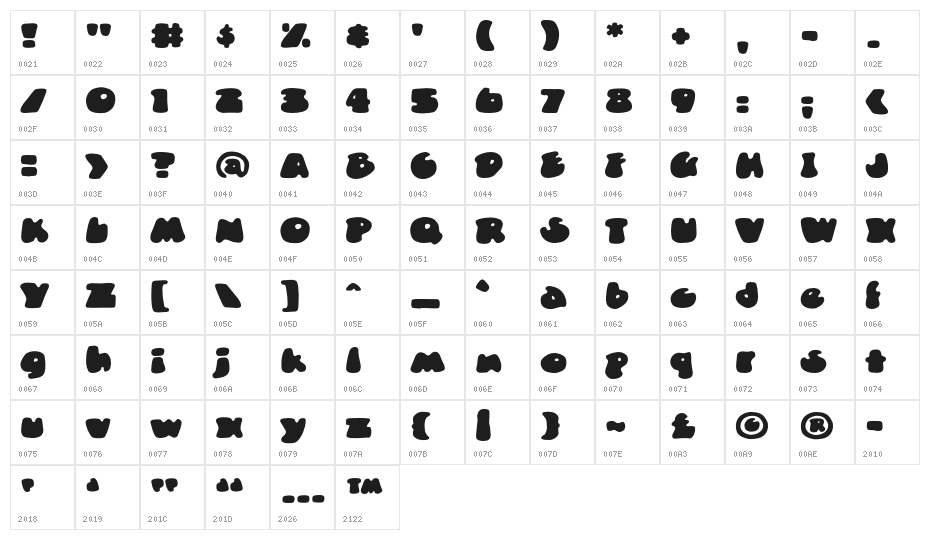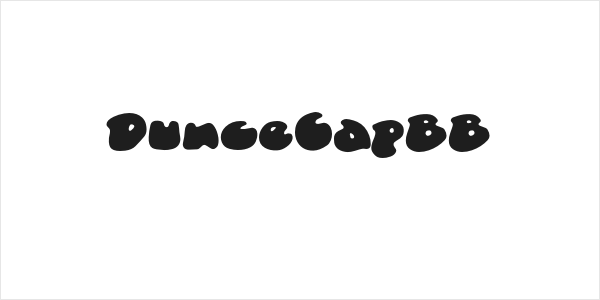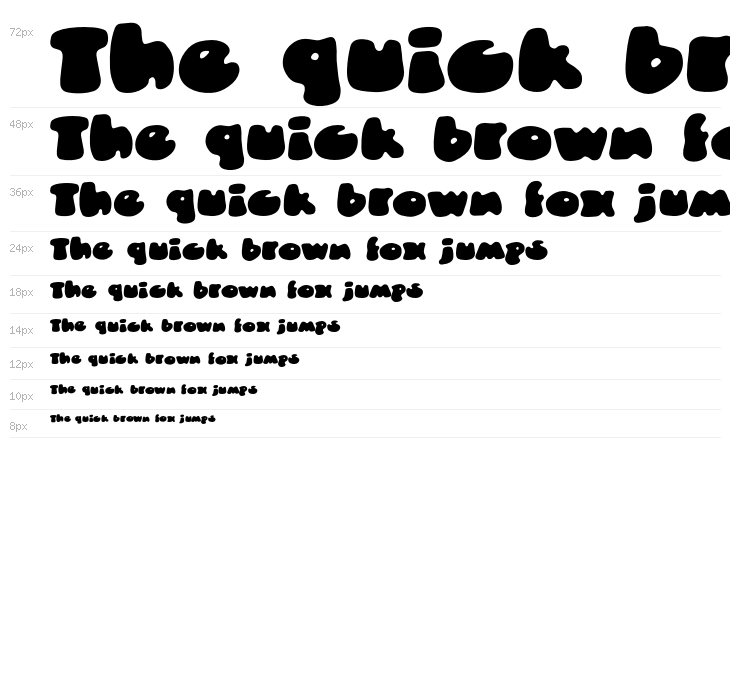
DunceCapBB Font
| Stile generale | Playful, Whimsical |
| Progetti proposti | Ideal for children's books, playful branding, event posters, and any design needing a fun, approachable vibe. |